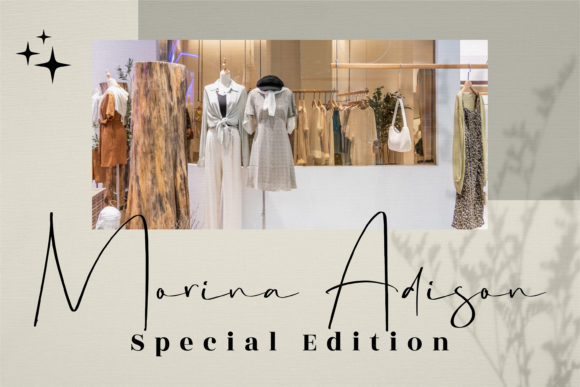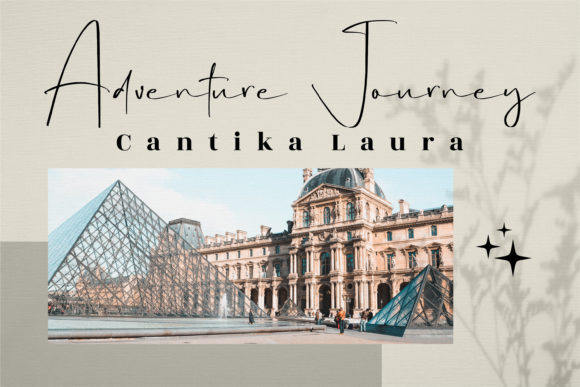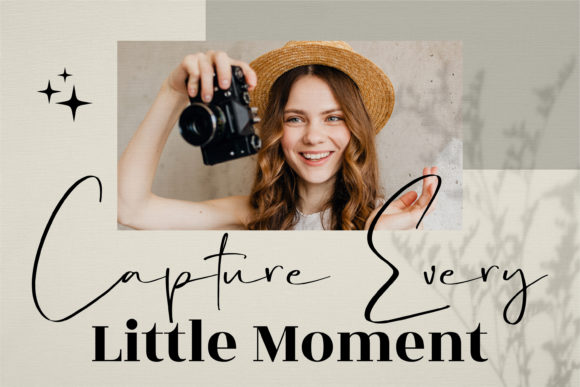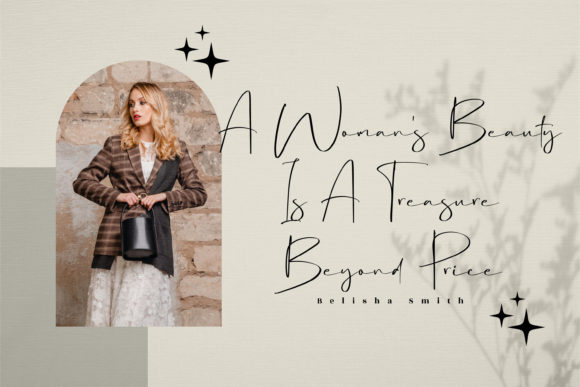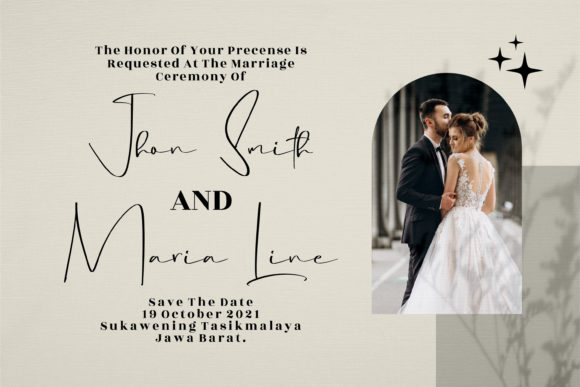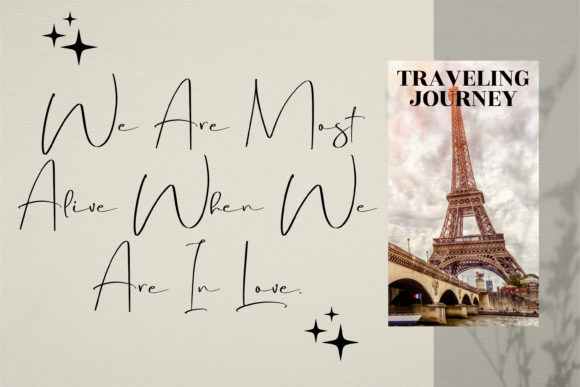
Futuristic Caligraph Font: Elevate Your Designs with a Dazzling Script Font
In the realm of typography, a font can make or break a design. It’s the foundation upon which the entire visual aesthetic is built. For designers and crafters seeking to add a touch of sophistication and futurism to their work, the Futuristic Caligraph Font is an exceptional choice. This stunning script font is meticulously crafted to bring a level of elegance and detail that can elevate any project.
What is Futuristic Caligraph Font?
Futuristic Caligraph is a dazzling and thin lettered script font that embodies the perfect blend of modernity and classic calligraphy. Its neatly crafted and highly detailed letters are designed to add a luxurious feel to any design, making it a versatile asset for a wide range of projects. Whether you’re working on a branding campaign, a website, or a print project, Futuristic Caligraph has the potential to enhance your creation with its unique charm.
Key Features of Futuristic Caligraph Font
- Thin Lettered Script Font: The font’s thin letters are perfect for adding a touch of elegance and sophistication to your designs.
- Highly Detailed: Each letter is meticulously crafted to ensure a high level of detail, making it suitable for both digital and print projects.
- Versatile: Futuristic Caligraph can be used for a wide range of topics and projects, from modern branding to creative crafts.
- Easy to Read: Despite its thin lines, the font remains highly legible, ensuring that your message is conveyed clearly.
Futuristic Caligraph Font offers numerous benefits for designers and crafters looking to elevate their work. Some of the key advantages include:
- Enhanced Visual Appeal: The font’s unique and elegant design can add a touch of sophistication to any project.
- Time-Saving: With Futuristic Caligraph, you can achieve professional-looking results without spending hours on custom lettering.
- Consistency: Using a single font throughout your project ensures consistency and cohesion, making your design more impactful.
- Customization: The font can be easily customized to fit your project’s specific needs, from adjusting the size to pairing it with other fonts.
Use Cases for Futuristic Caligraph Font
The versatility of Futuristic Caligraph Font makes it suitable for a wide range of projects, including:
- Branding and Logo Design: Create a lasting impression with a unique and elegant logo that stands out.
- Website Design: Enhance your website’s typography and add a touch of sophistication to your content.
- Print Design: Use Futuristic Caligraph for brochures, posters, and business cards to add a level of elegance.
- Crafting and DIY Projects: Add a personal touch to your crafts, such as handmade cards, invitations, and decorations.
Tips for Using Futuristic Caligraph Font
To get the most out of Futuristic Caligraph Font, consider the following tips:
- Pair with Complementary Fonts: Combine Futuristic Caligraph with bold or sans-serif fonts to create visual interest.
- Adjust Font Size: Experiment with different font sizes to add hierarchy and emphasis to your design.
- Use on High-Contrast Backgrounds: Take advantage of the font’s thin lines by using it on high-contrast backgrounds to make it stand out.
Futuristic Caligraph Font is a dazzling and versatile script font that can elevate any design project. Its unique blend of modernity and classic calligraphy makes it an excellent choice for designers and crafters seeking to add a touch of sophistication and futurism to their work. With its highly detailed letters, ease of use, and versatility, Futuristic Caligraph is sure to become a valuable asset in your font library.